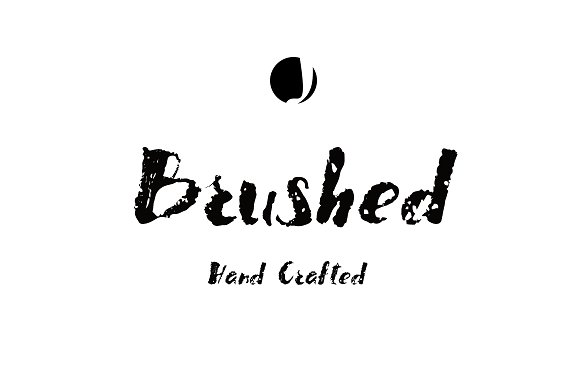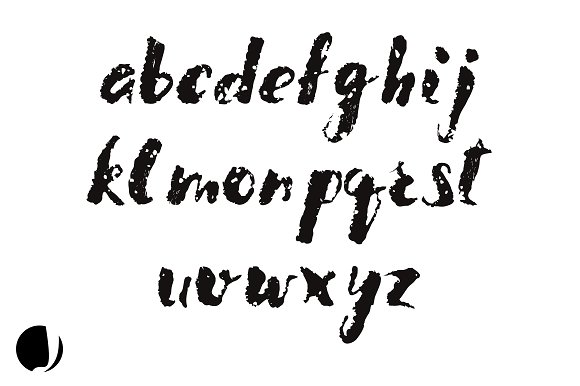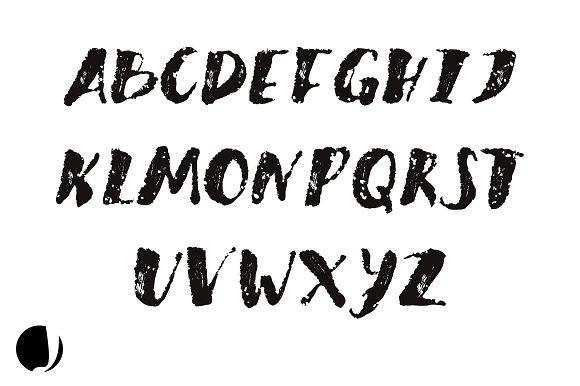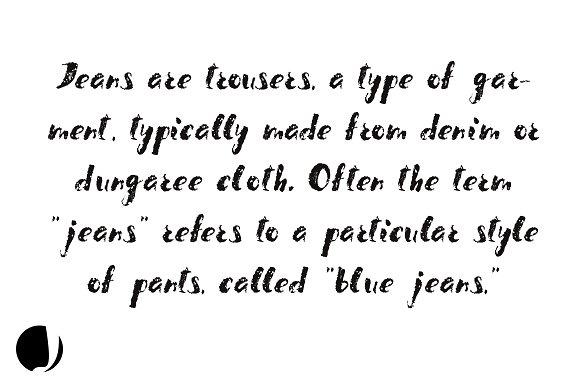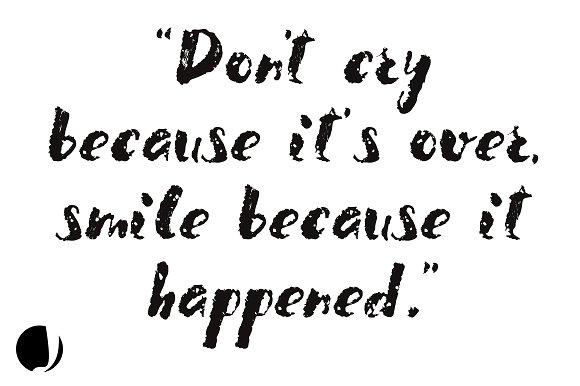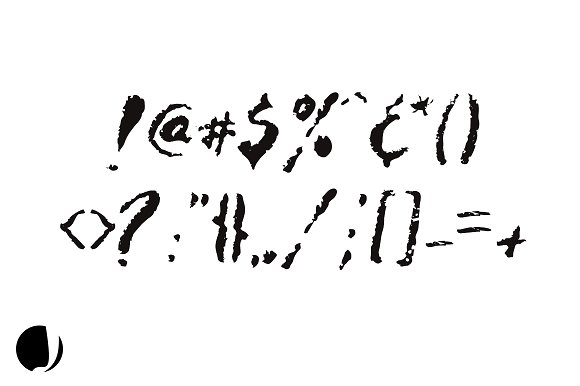
HomeScript FontsBrushed Font Script Fonts Brushed Font FacebookXPinterestWhatsApp Brushed Font Poster 2 Brushed Font Poster 3 Brushed Font Poster 4 Brushed Font Poster 5 Brushed Font Poster 6 About Brushed Font Brushed is a rough brush font that gives an authentic look to the text. DOWNLOAD NOW People also explored Mr. Roosevelt Font Opera Font Layla Signature Font Fantasy Font Frisco Love Story Font South Paradise Font Marlina Font Ginger Bread Font 329 0 TagsBrushed Font Previous articleStart Today FontNext articleAlzelvin Font LEAVE A REPLY Cancel reply Comment: Please enter your comment! Name:* Please enter your name here Email:* You have entered an incorrect email address! Please enter your email address here Website: Save my name, email, and website in this browser for the next time I comment. Personal Use Free Love Baby Personal Use Free Read more about this font Avatarock Personal Use Free Read more about this font Dead Block Personal Use Free Read more about this font Avagan Personal Use Free Read more about this font BLOG Best Fonts for YouTube Videos: Make Your Thumbnails Stand Out Best Fonts for YouTube Videos: Make Your Thumbnails Stand Out Choosing the right font can make a massive difference in how your YouTube videos perform.... Top 10 Handwritten Fonts That Elevate Your Designs Best Fonts for T-Shirt Design – Top 2025 Picks Fonts That Capture the Spirit of New York City